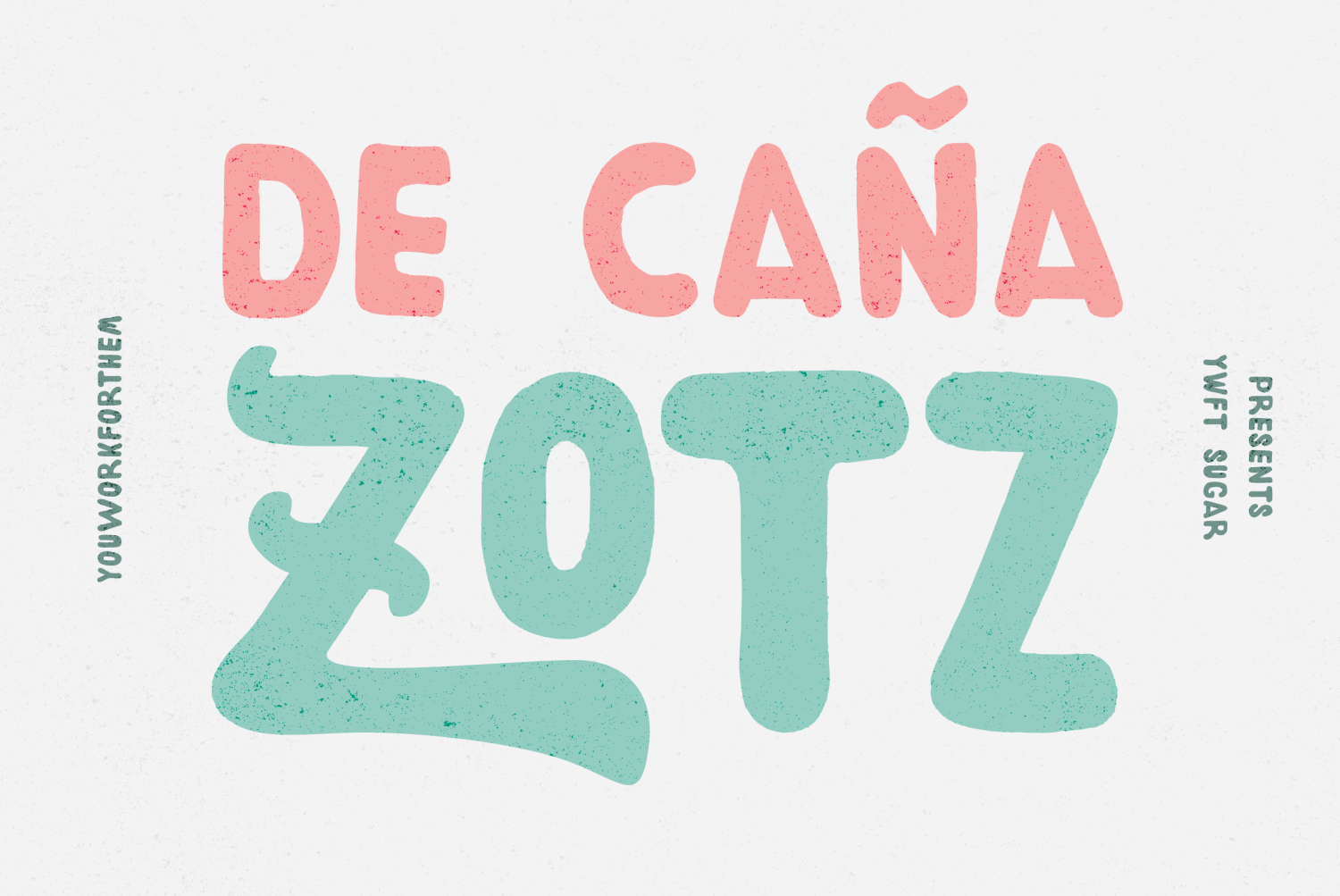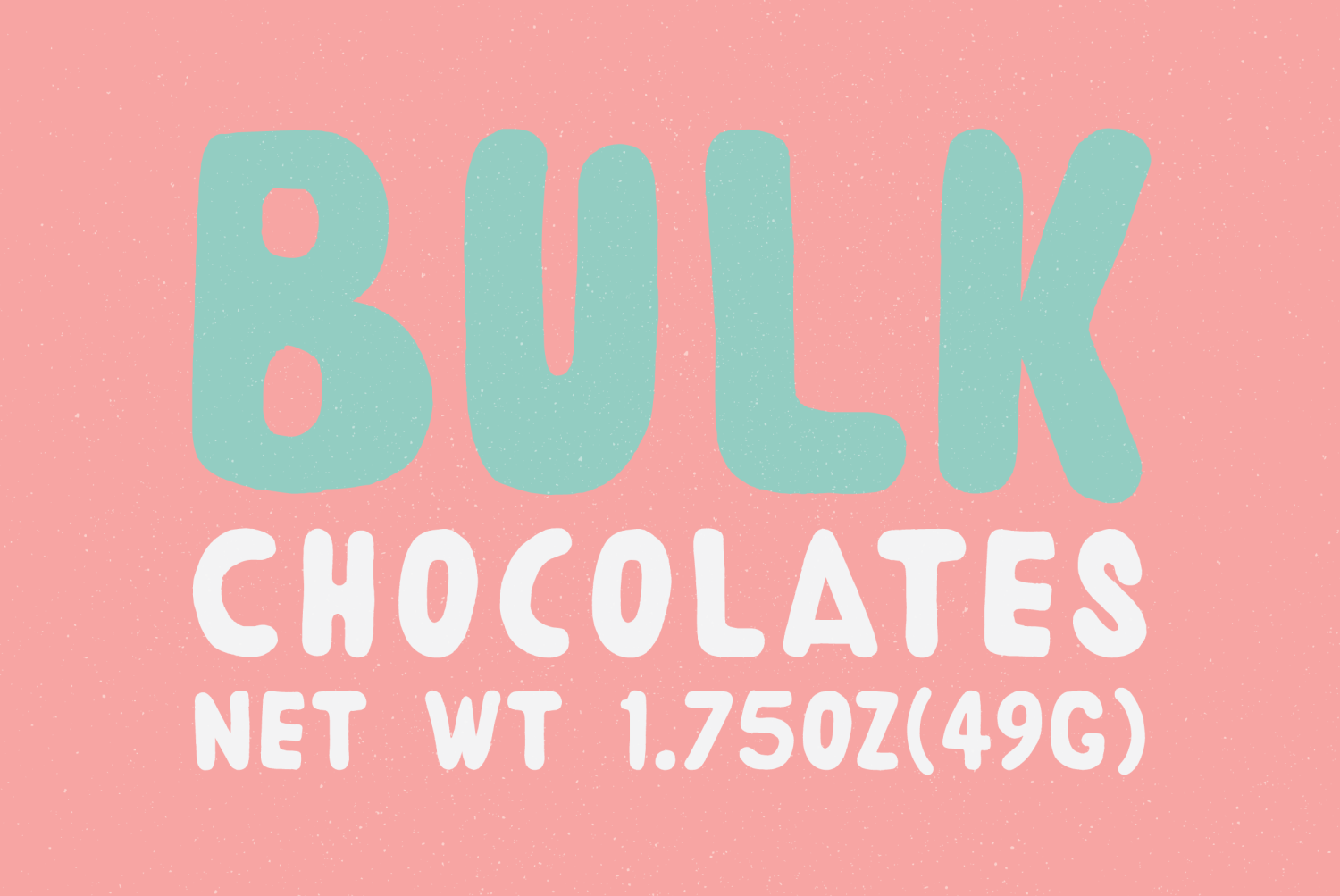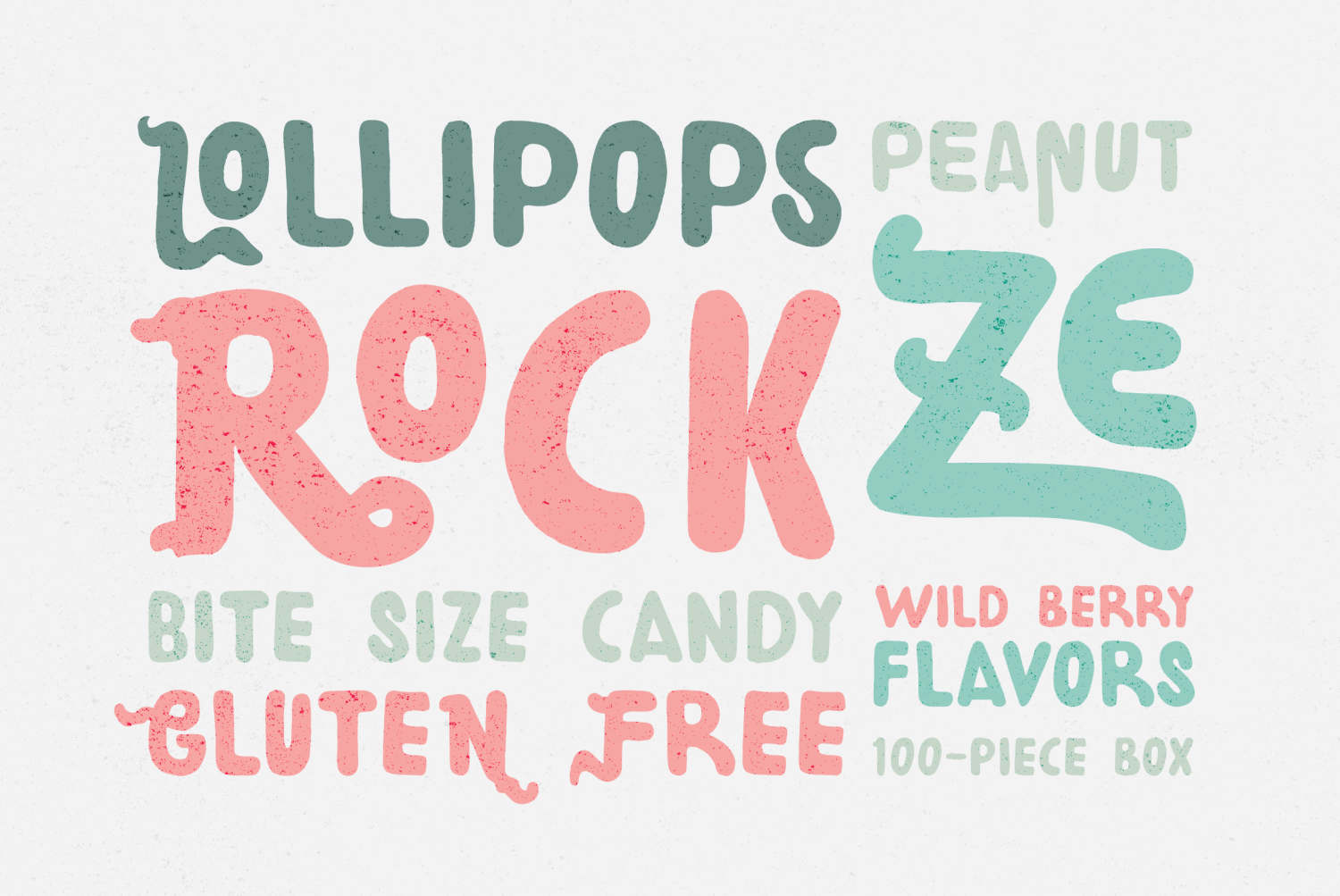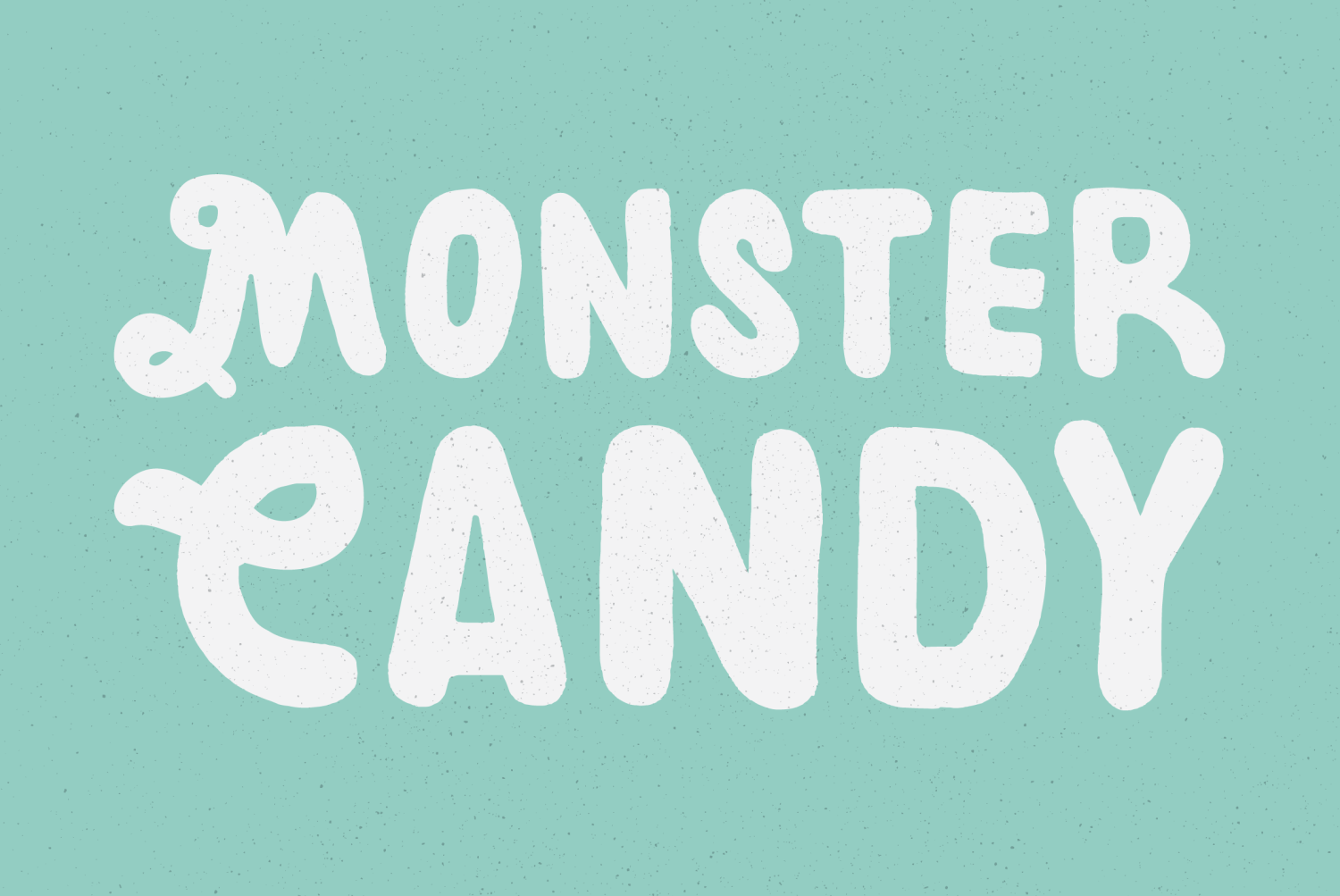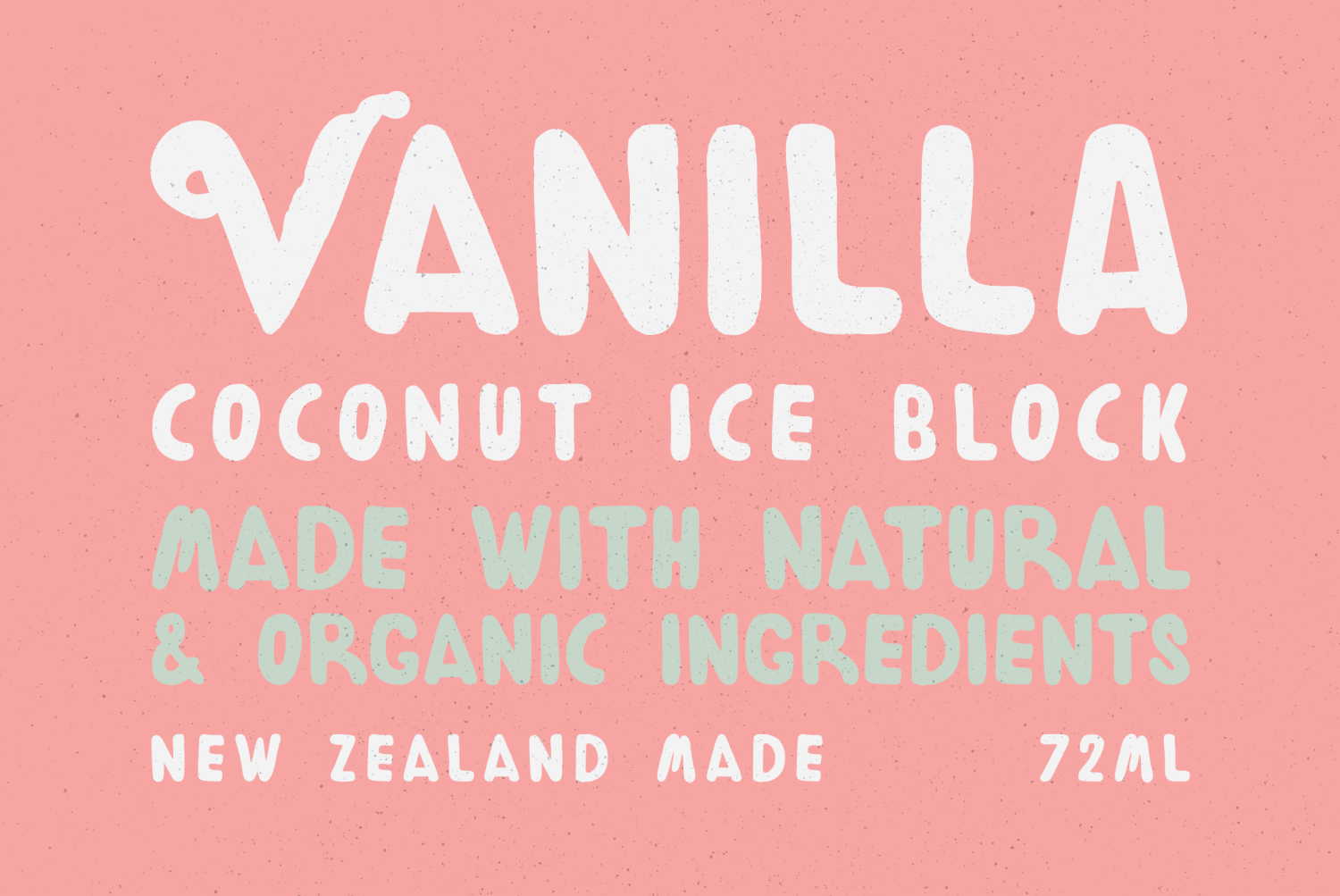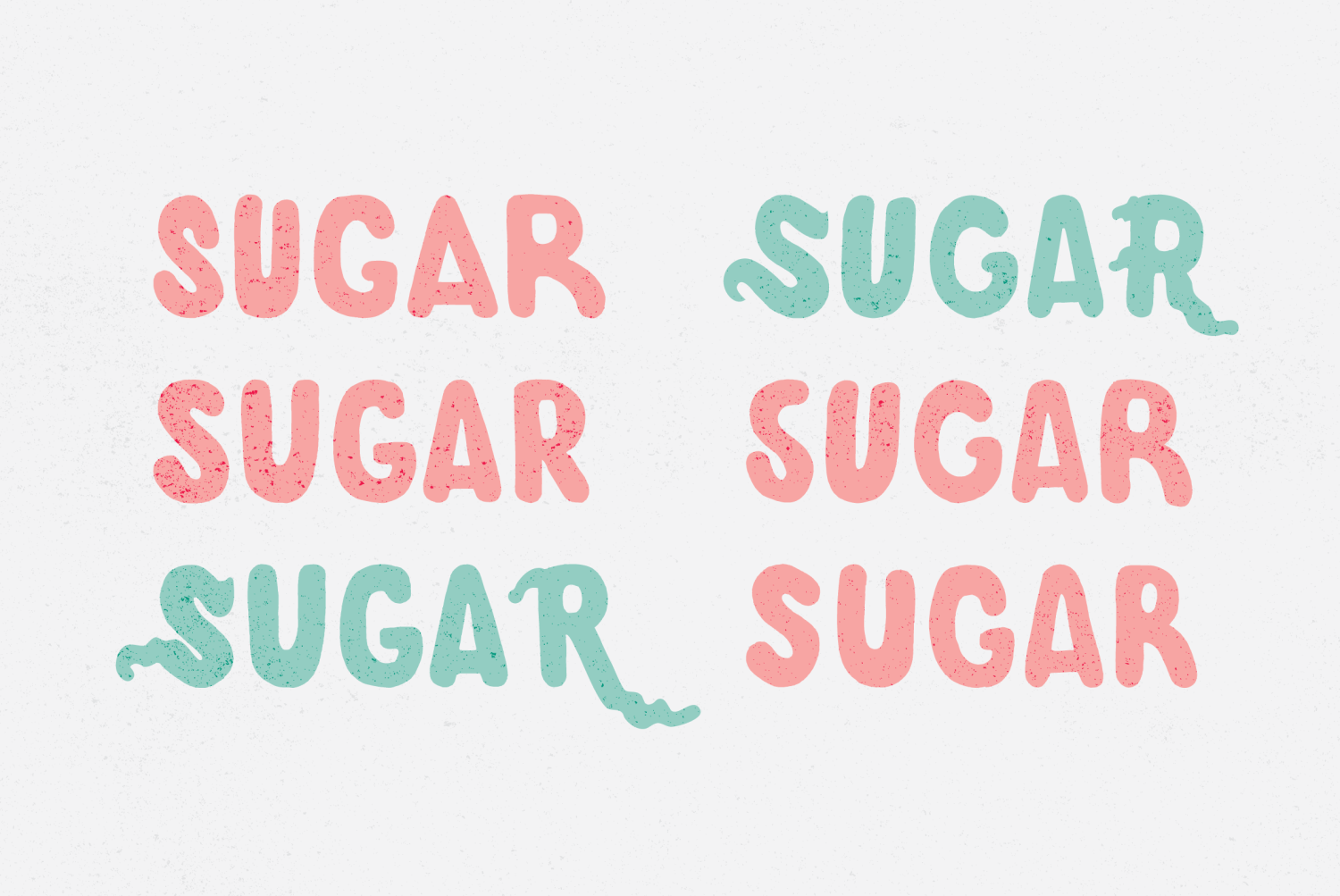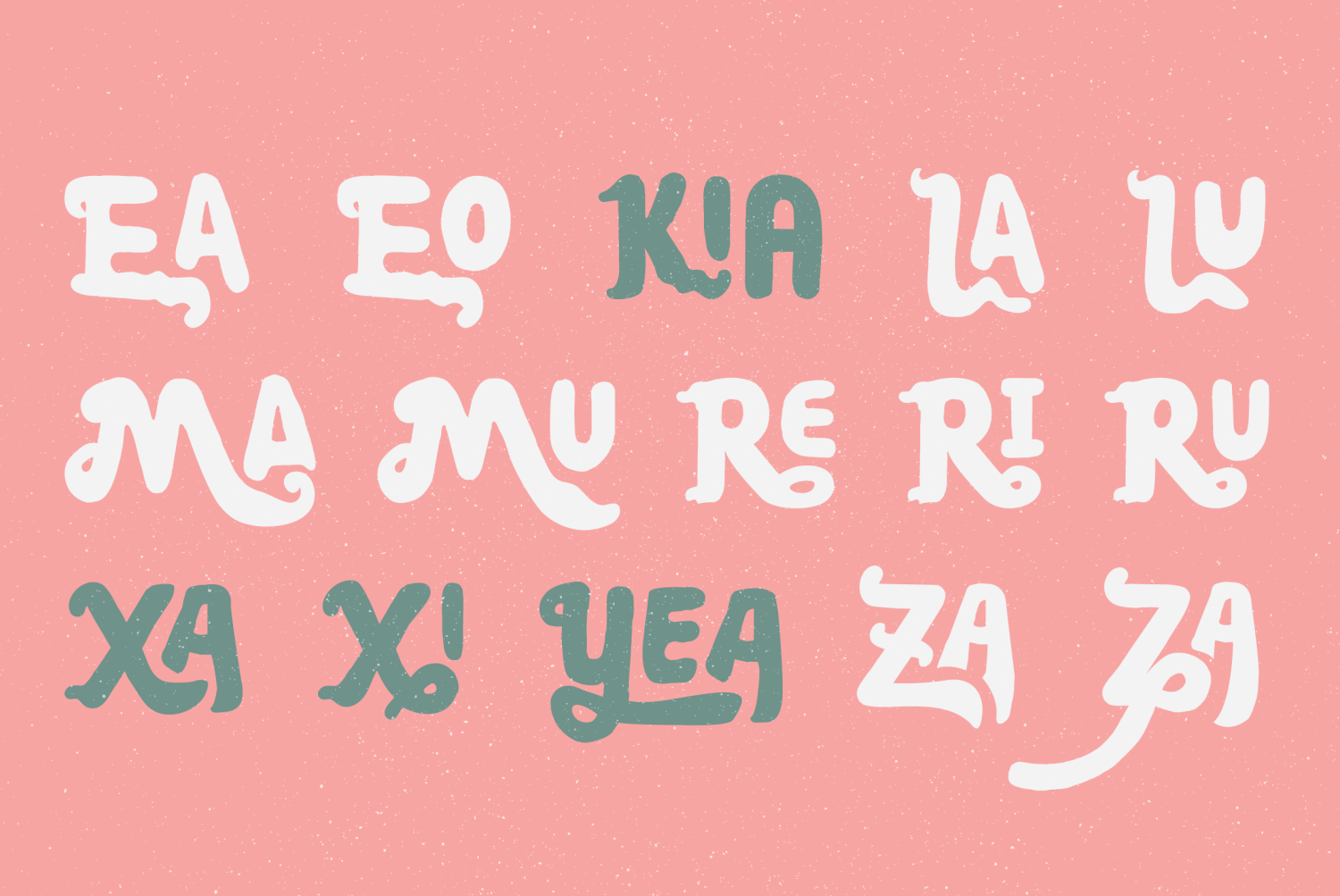
YWFT Sugar
Font Family by YouWorkForThem
Like a candy store full of salt water taffy, YWFT Sugar brings the flavor to satisfy the sweetest tooth. Featuring stylistic alternates like swash, contextual alternates and ligatures, this Sugar is just the right combination of silly-in-the-school yard and fun-in-the-sun, with a classic note of retro advertising. It's a great way to eat all the Sugar you want...no dentist required!